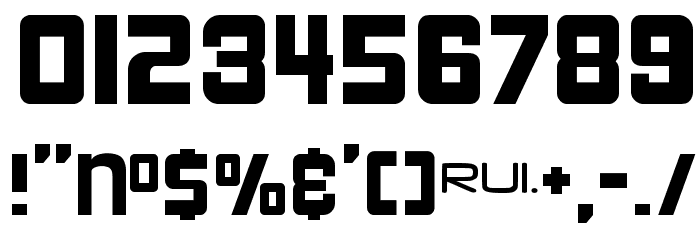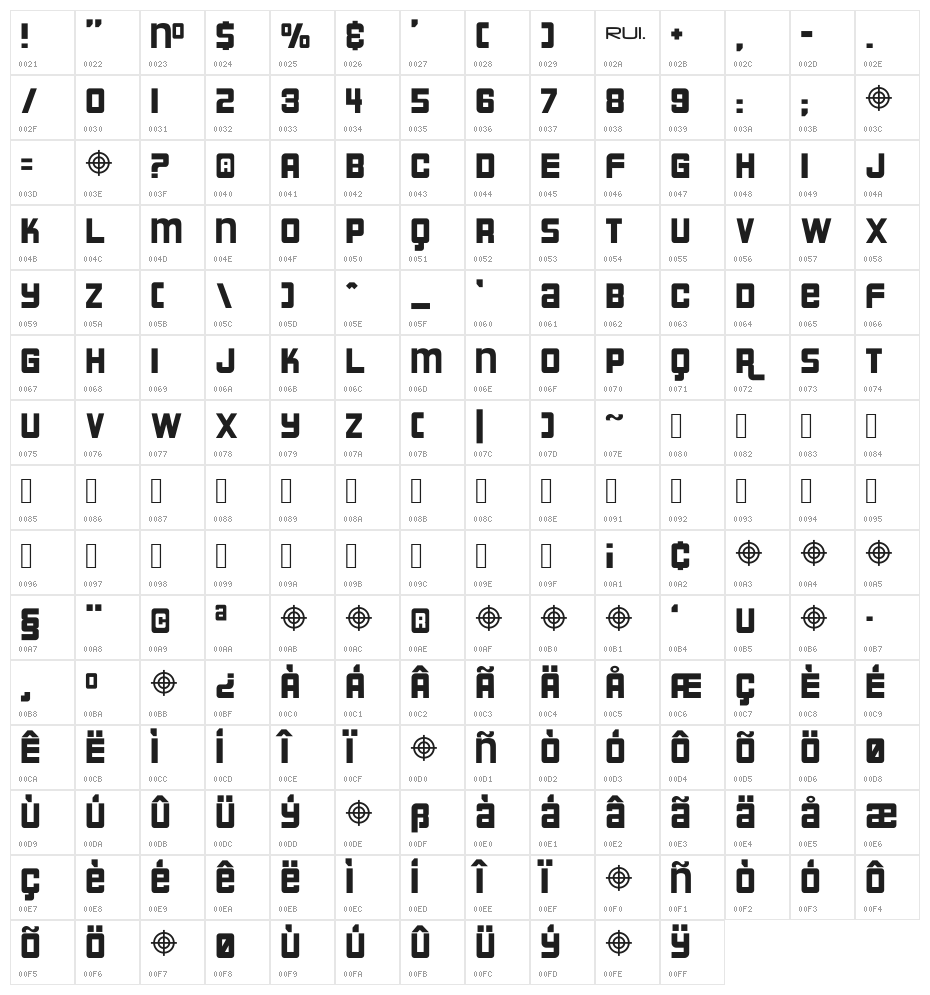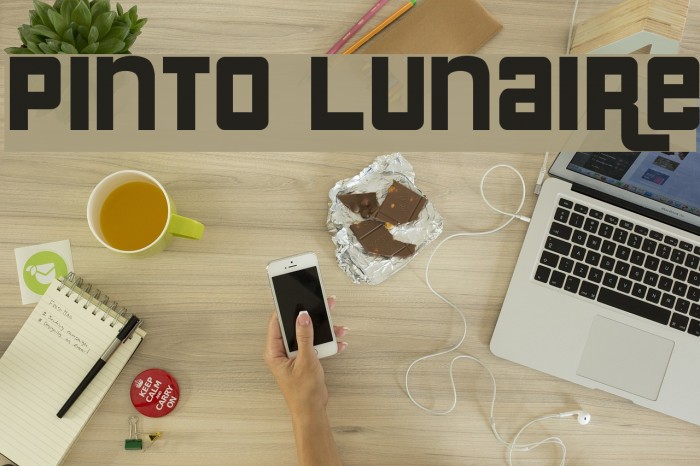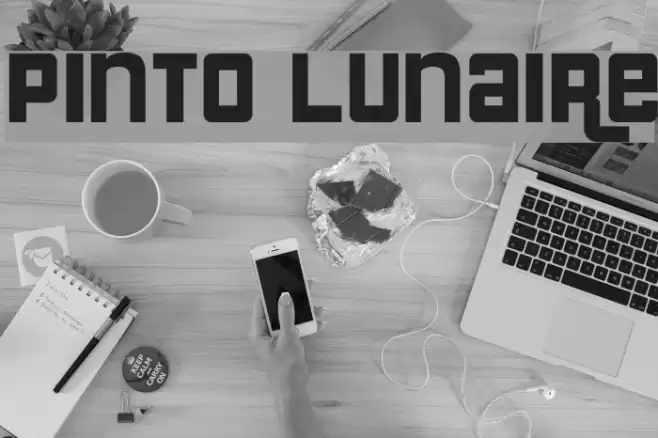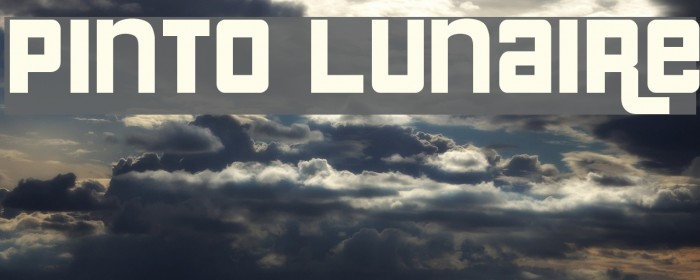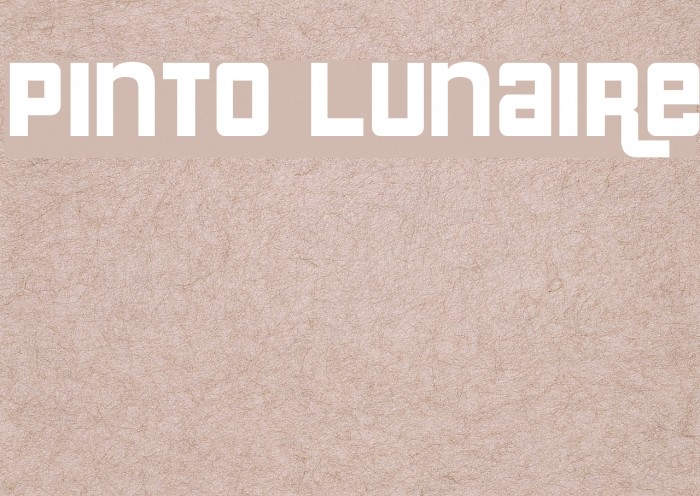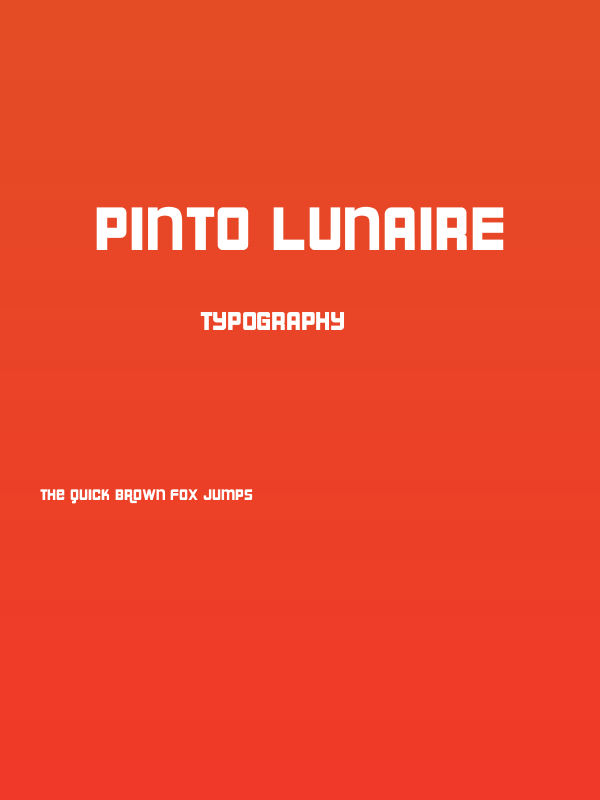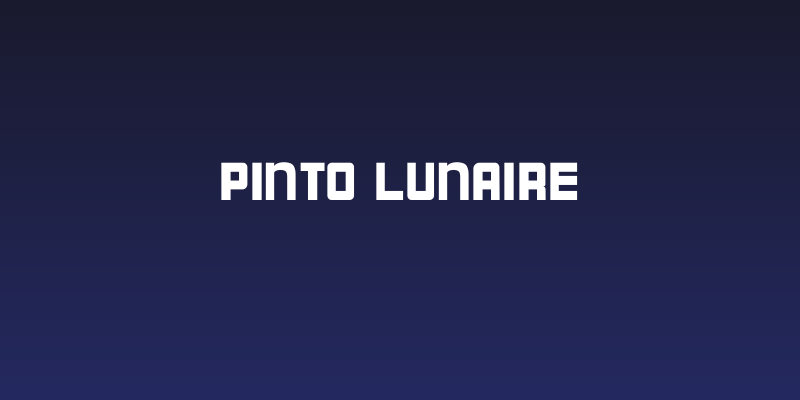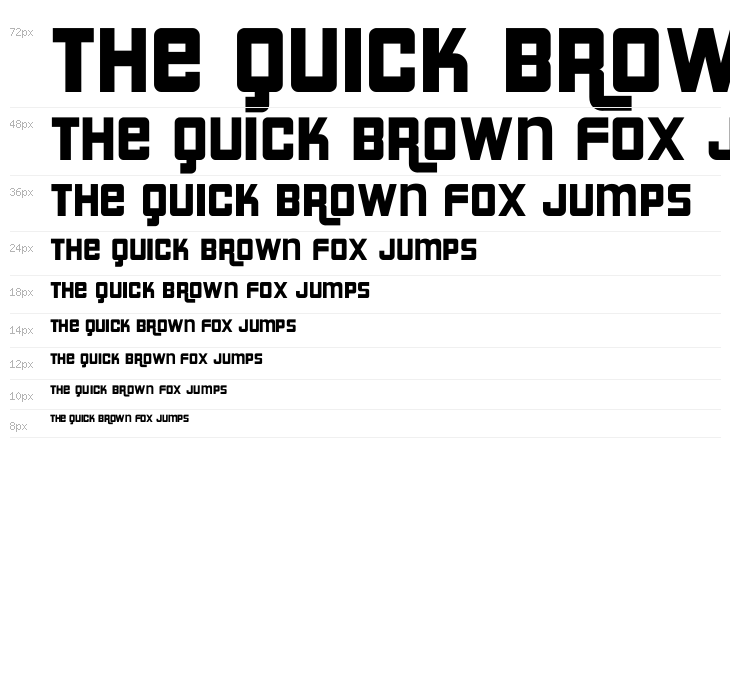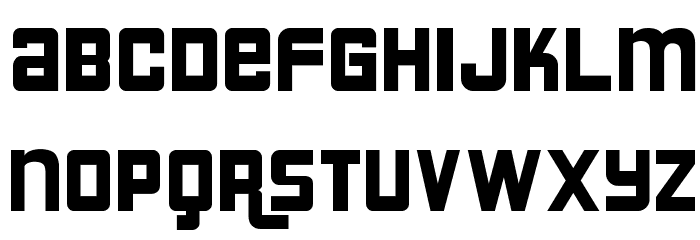
Pinto Lunaire Font
Pinto Lunaire Description
This font features a bold, geometric design with a strong presence. The characters are constructed with thick, uniform strokes, giving it a robust and modern appearance. The uppercase and lowercase letters maintain a consistent style, with rounded edges that soften the overall look. The numerals and special characters follow the same design principles, ensuring a cohesive visual identity. The font's structure is clean and straightforward, making it highly legible even at smaller sizes. Its boldness and geometric shapes make it ideal for projects that require a strong visual impact.
| Proposed Projects | Ideal for branding, headlines, posters, and digital media where a strong, modern look is desired. |